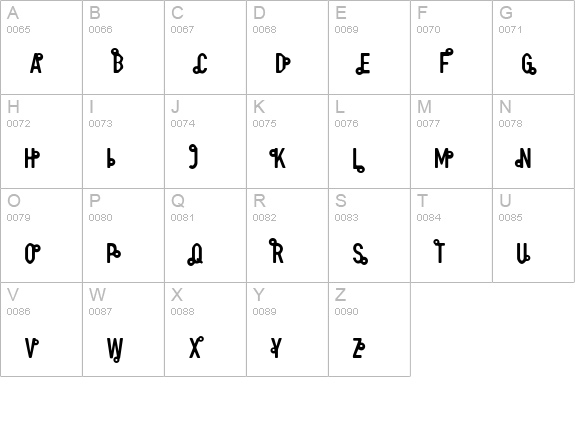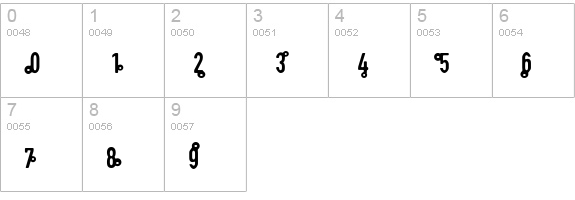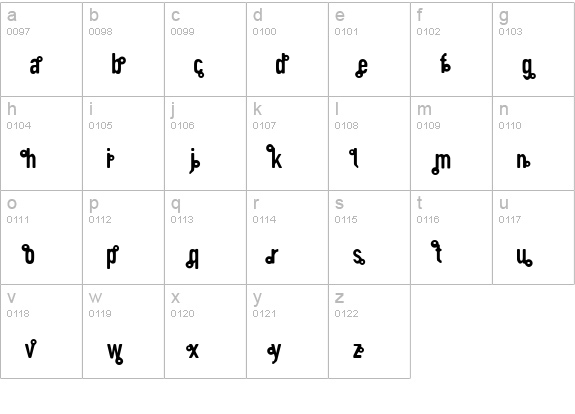
mole Font Details
The Mole font is a charming and versatile typeface that exudes a sense of playfulness and creativity. With its rounded edges and whimsical design, Mole is perfect for adding a touch of warmth and personality to any project. This free font is available to download at FontsMarket.com, making it easily accessible for designers and creatives looking to add a unique flair to their work. Whether you're designing a logo, poster, or website, Mole is sure to make a lasting impression with its distinctive style and effortless charm. Download this free font today and let your creativity soar with Mole!